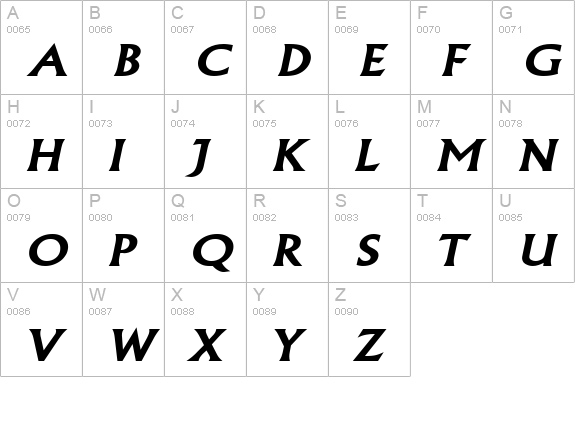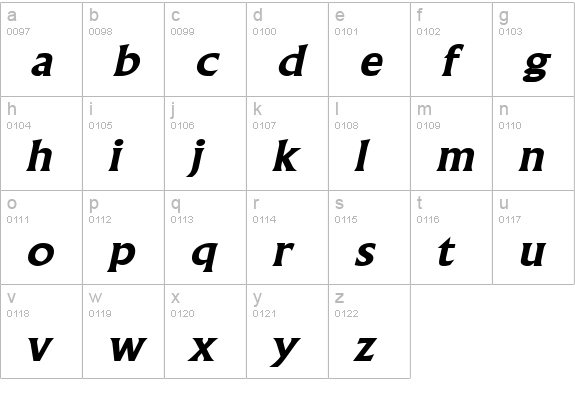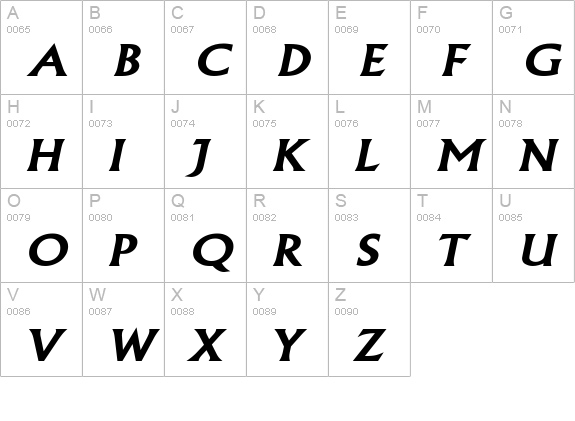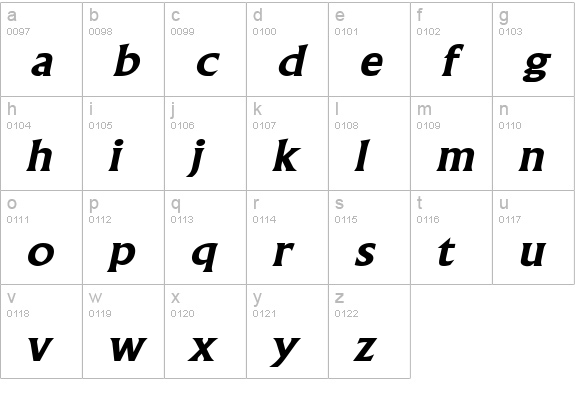
Flair Wide BoldItalic Font Details
Flair Wide BoldItalic is a distinctive, extended-width variant in the Flair typeface family \xE2\x80\x94 well suited to design and typography projects.
The Flair Wide BoldItalic font exudes a sense of bold elegance and modern sophistication. With its wide and stylish characters, this font is perfect for making a statement in your designs. The bold italic style adds a touch of flair and personality, making it ideal for headlines, titles, and attention-grabbing text. Best of all, Flair Wide BoldItalic font is available for free download at FontsMarket.com. Don't miss out on the opportunity to add this versatile and eye-catching font to your collection today!